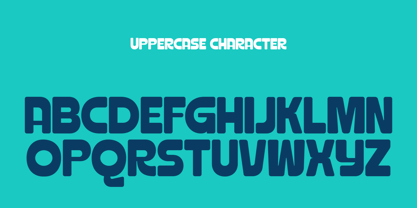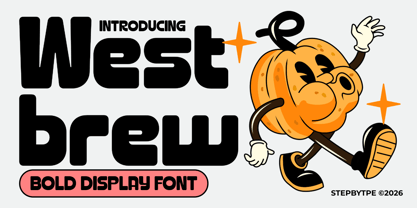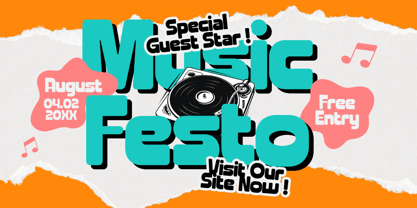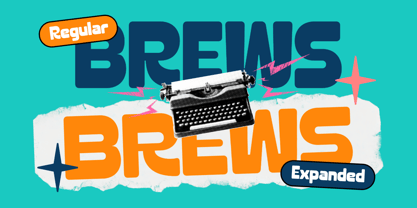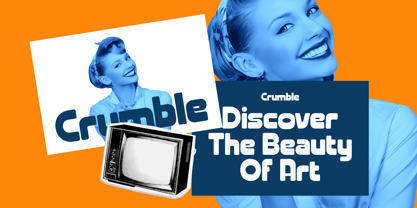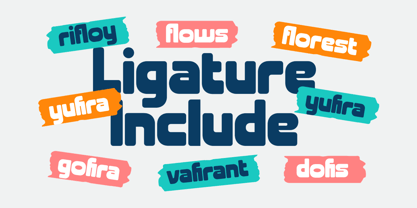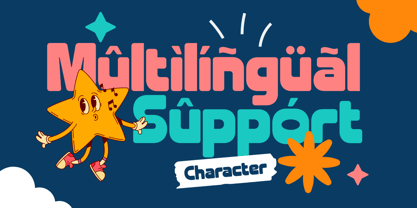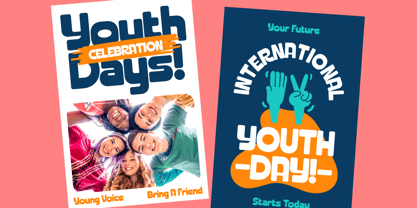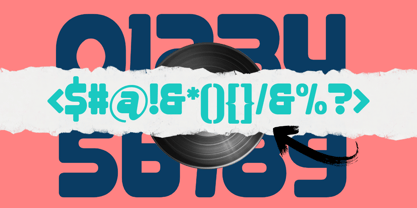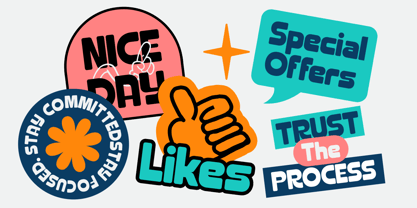
Westbrew
by Steptype
The Westbrew Font Family was designed by Saeful Maarif and published by Steptype. Westbrew contains 2 styles and family package options. More about this family
This font is a bold geometric display font with rounded, chunky letterforms and a playful retro-futuristic character. It combines heavy weight, smooth curves, compact proportions, and distinctive geometric details to create a strong yet friendly visual identity.
The overall look feels youthful, expressive, modern, and slightly cartoon-inspired, making it especially effective for large headlines and branding where the typography needs to become a major visual element.